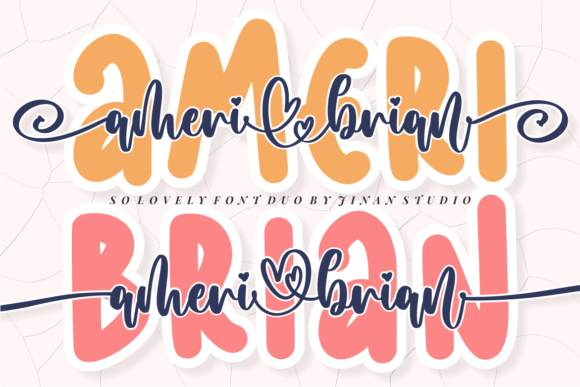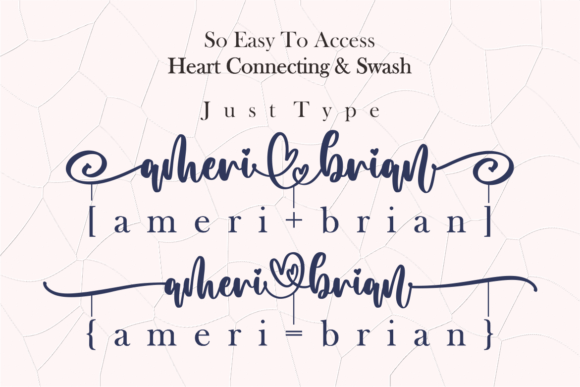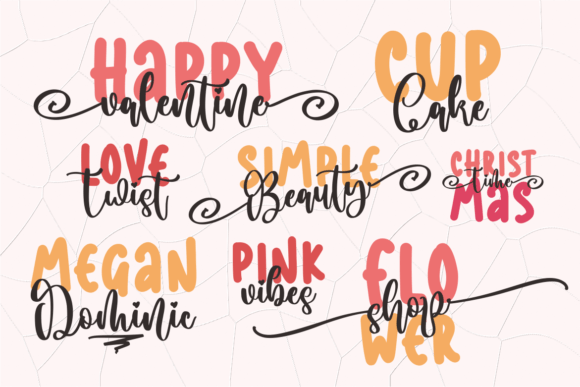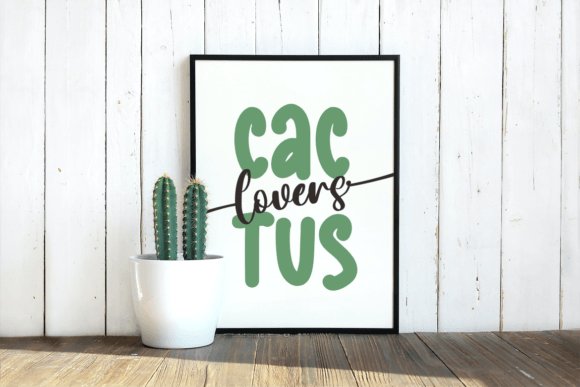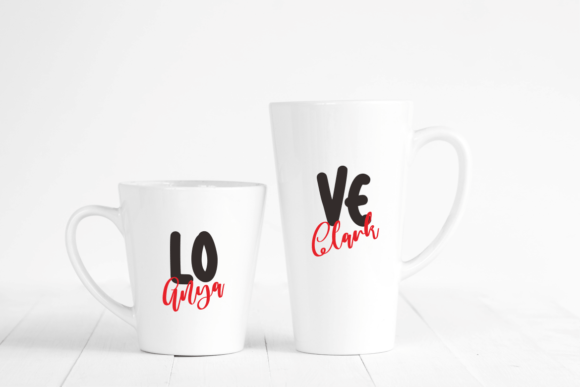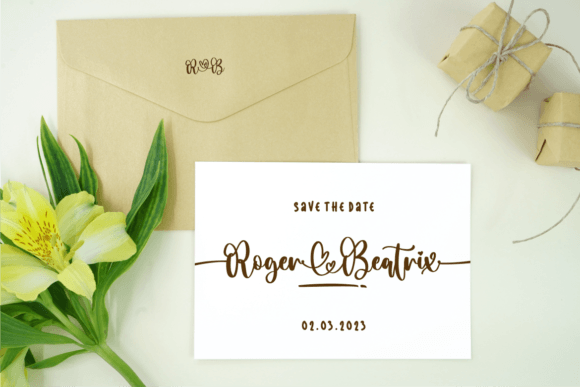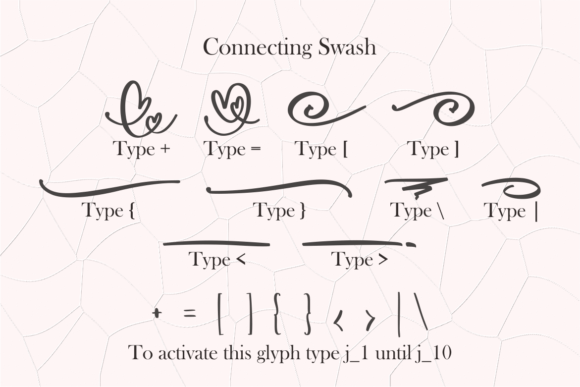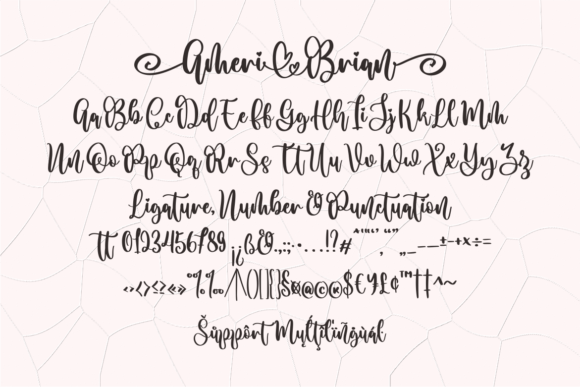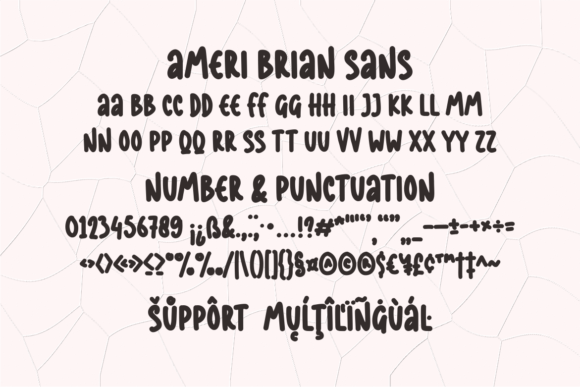
Ameri Brian Font
Ameri Brian is a stylish and delicate duo font (script and sans serif) suitable for a wide spectrum of applications. From greeting cards to headlines, this font will guarantee a romantic touch to each of your creations!